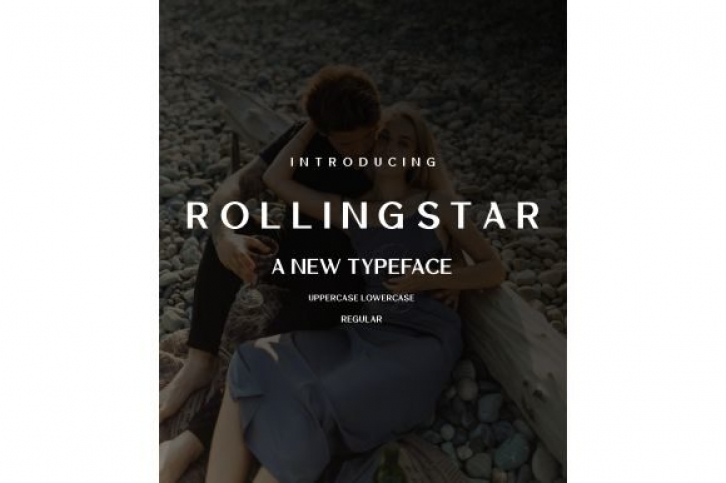
Rollingstar is an authentic sans serif font. It can easily be matched to an incredibly large set of projects, so add it to your creative ideas and notice how it makes them stand out!